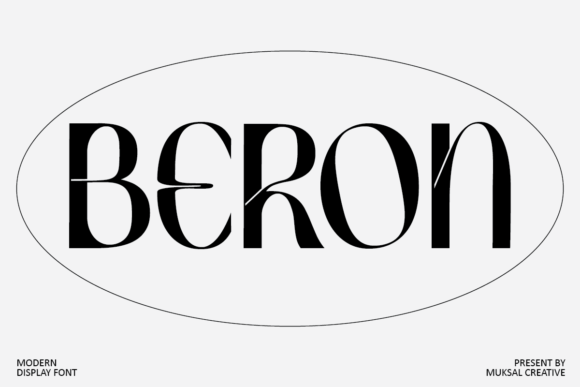
Beron Font
Introducing Beron Font, a stunning display font that effortlessly infuses any design with a sense of vintage charm. Created by Muksal Creative, Beron is a true throwback that's both stylish and retro.
Whether you're designing posters, logos, or anything in between, Beron is the perfect choice for adding a touch of nostalgia to your work. The font family boasts bold letterforms and vintage-inspired details that are sure to catch the eye and bring a smile to the face of anyone who sees them.
One of the key features of Beron Font is its versatility. Whether you're looking to create a bold and attention-grabbing design or something more understated and elegant, Beron can help you achieve your vision. And with its rich collection of keywords, you'll have no trouble finding the perfect font to suit your needs.
So why should you choose Beron Font? Because it's more than just a font – it's a statement. Beron is a font that tells a story, evoking feelings of nostalgia, warmth, and style. It's perfect for anyone looking to add a touch of personality to their designs, and its creative potential is limited only by your imagination.
Don't settle for a generic font that doesn't stand out. Choose Beron Font and take your designs to the next level. With its stunning vintage-inspired details and bold letterforms, Beron is sure to be a hit with anyone who appreciates the finer things in life.